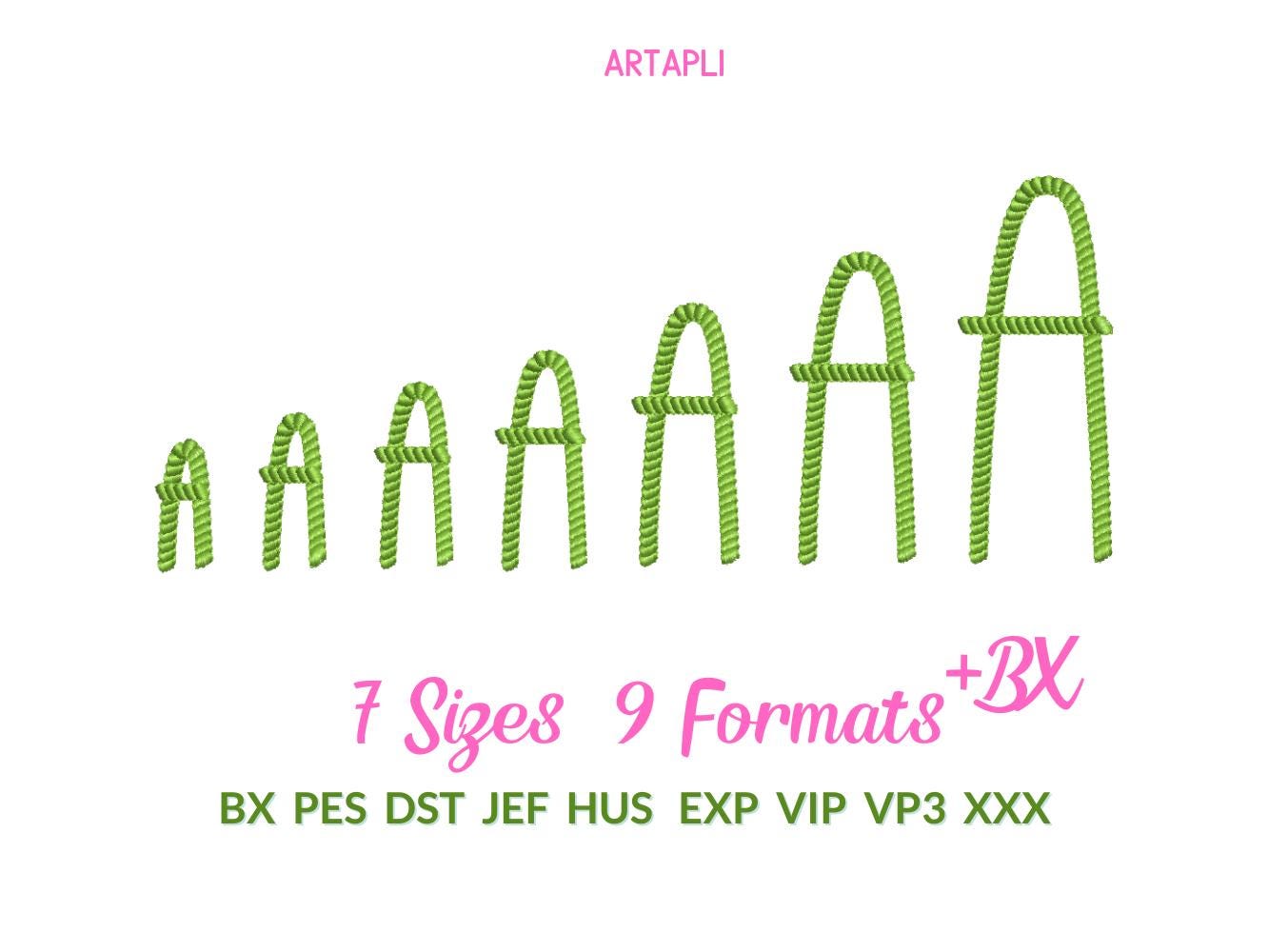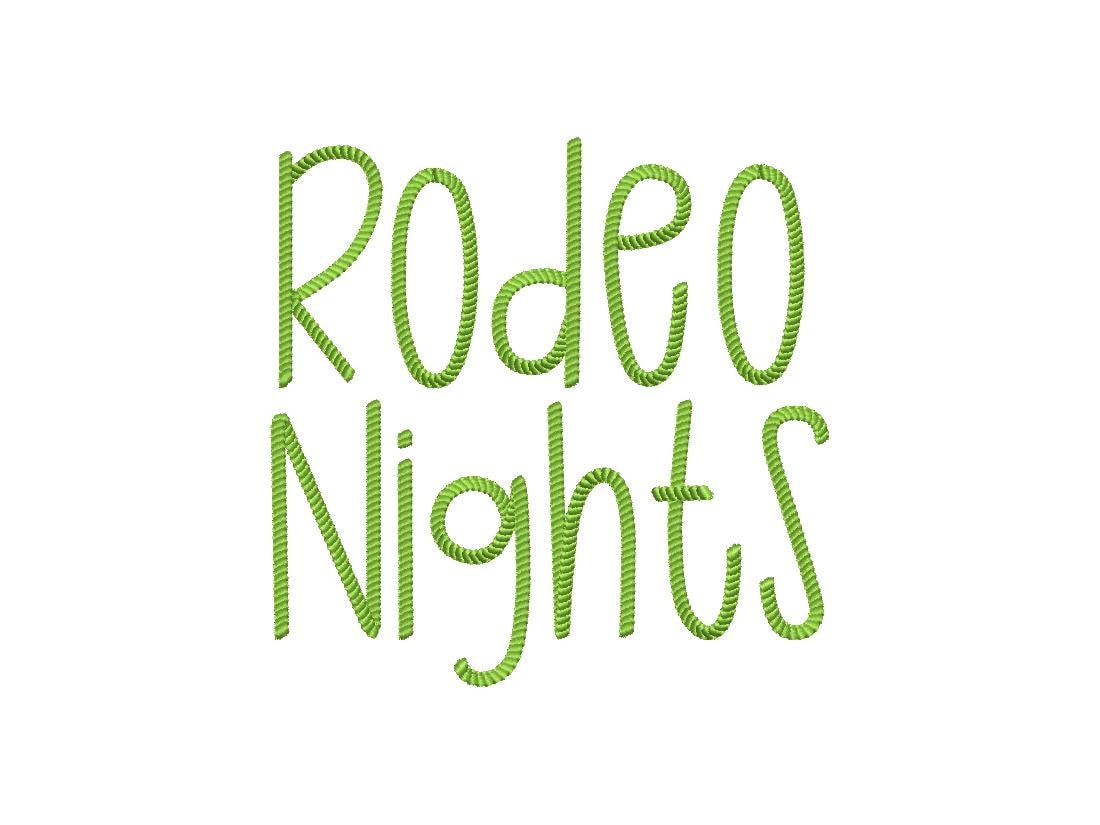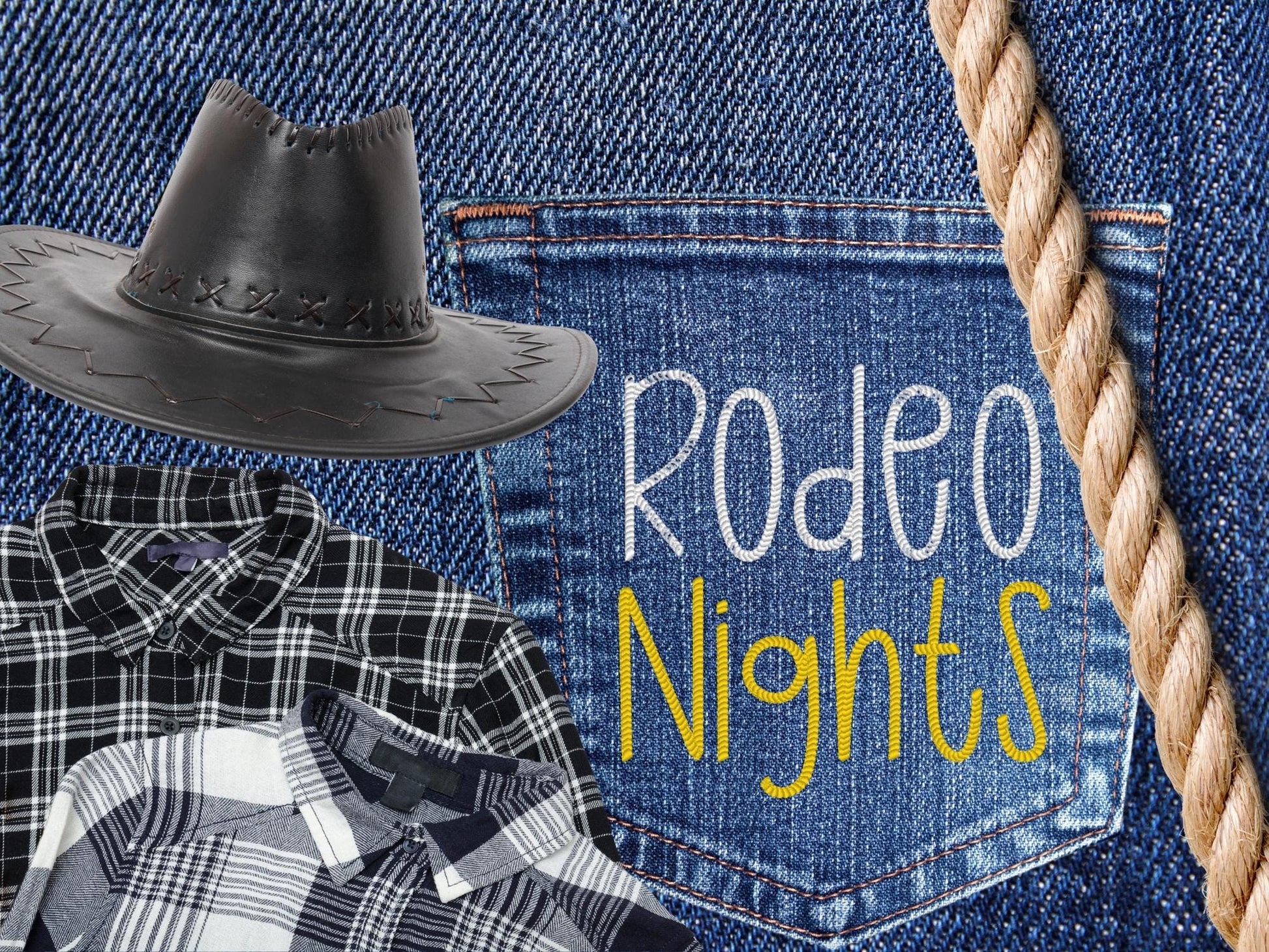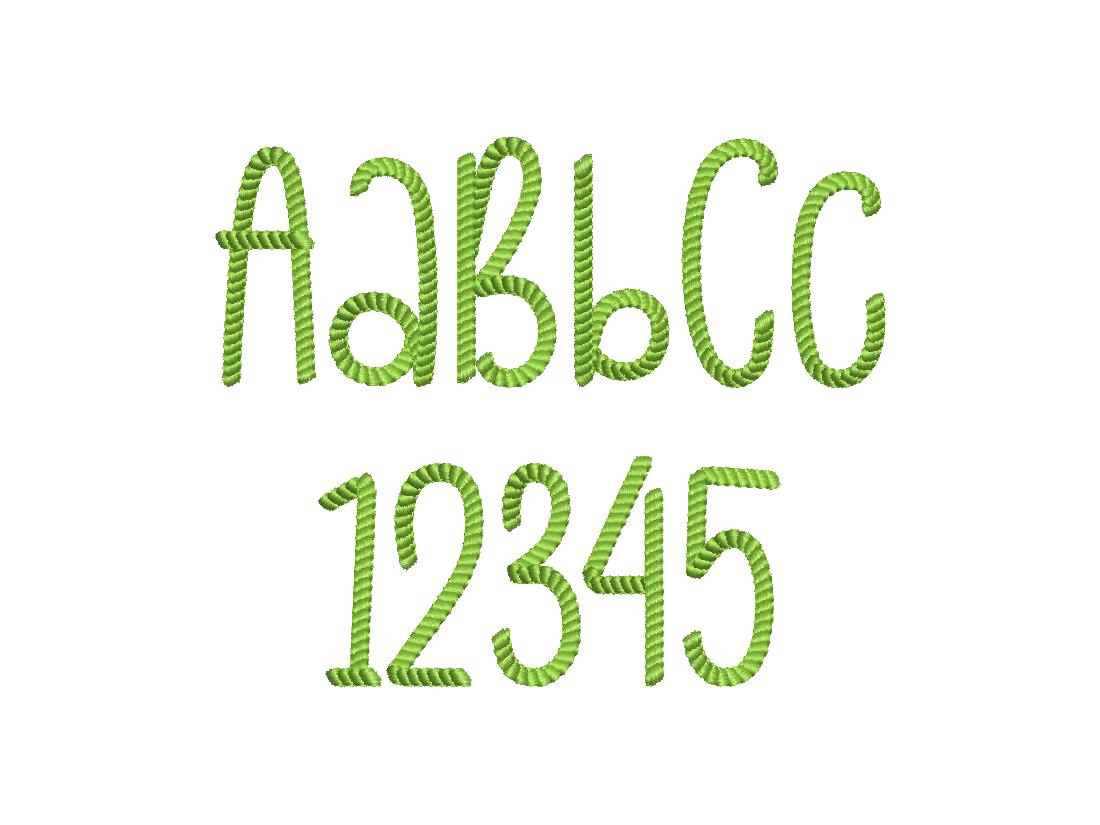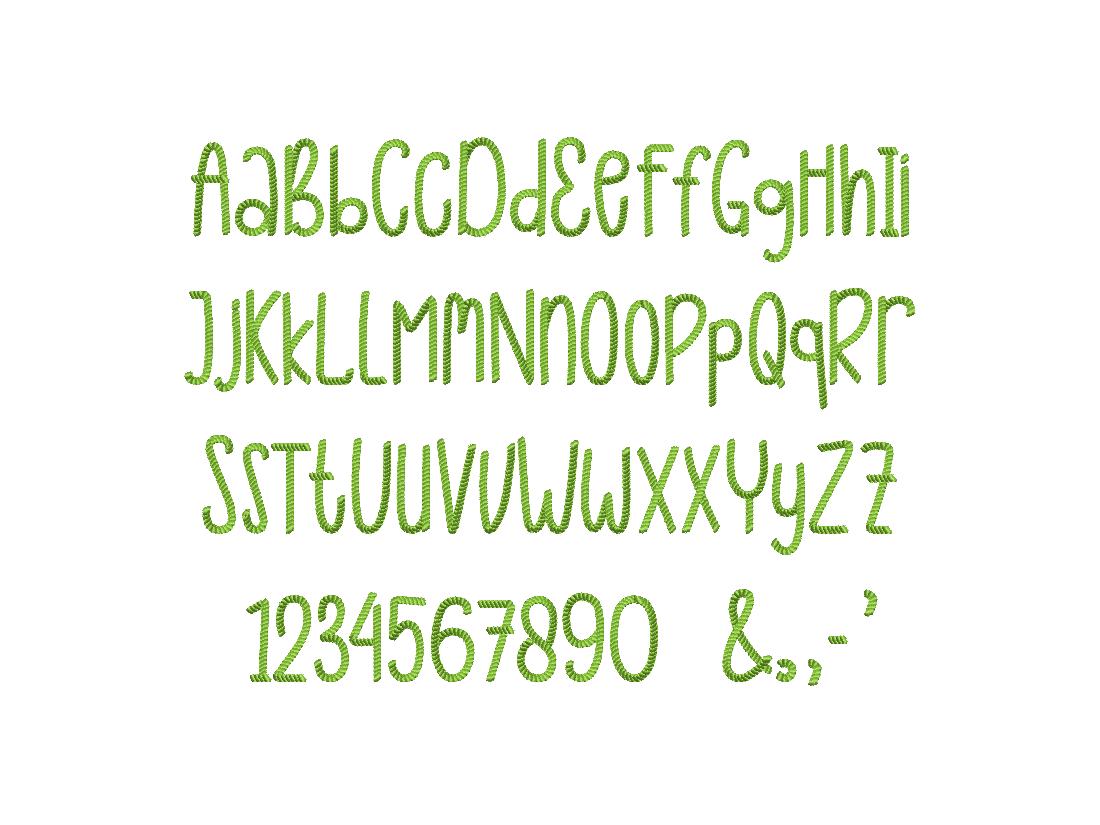
Rope Stitch One Height Font
Uppercase and lowercase letters, numbers and punctuation in seven sizes: 1.2, 1.4, 1.7, 2, 2.4, 2.8 and 3.5 inches.
- Rope stitch one height font
- Uppercase, lowercase, numbers 0-9, punctuation
- 7 sizes, 1.2 to 3.5 in